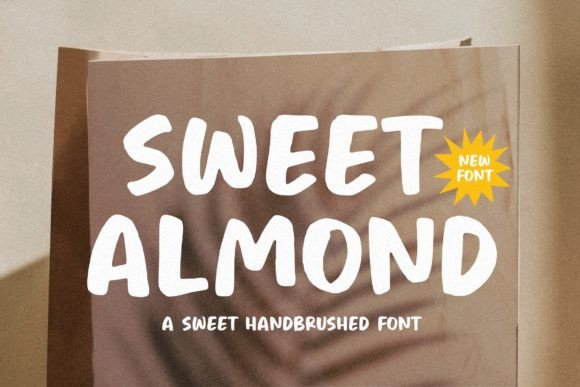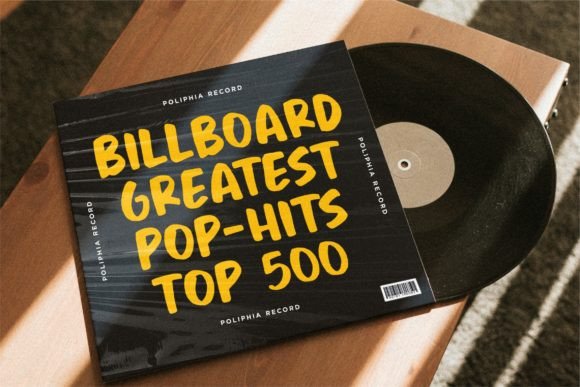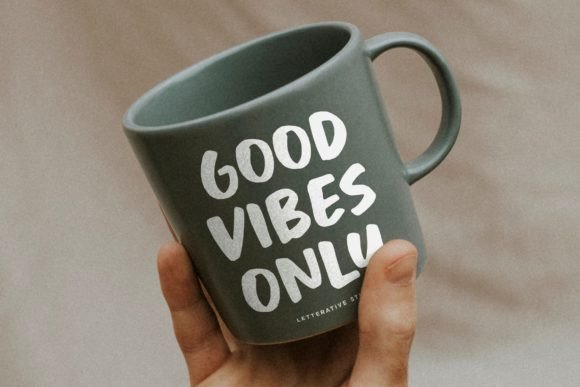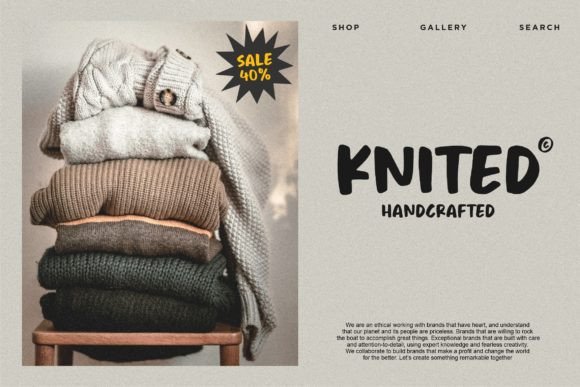
About Sweet Almond
Sweet Almond is a Sweet Hand brushed Font.
This font only has uppercase letters. Perfect for creating logos, greeting cards, posters, packaging and so much more! Its charming and warm character will help you give your project a truly unique feel.